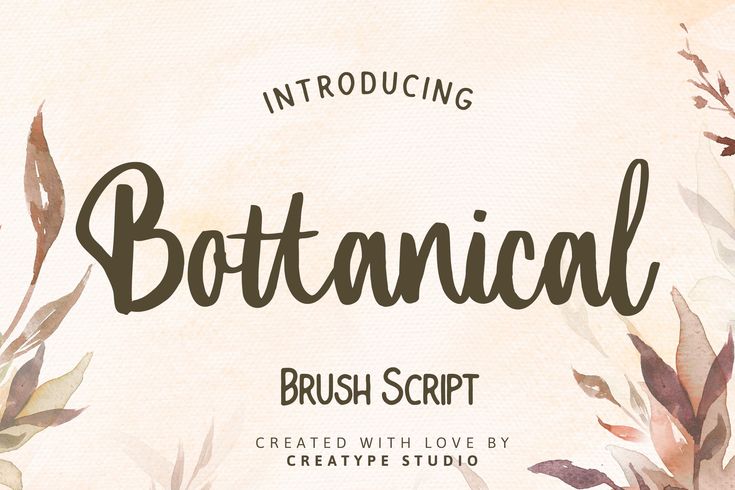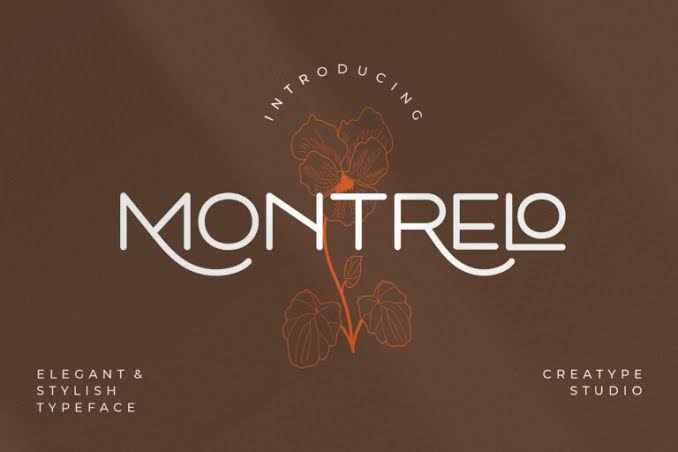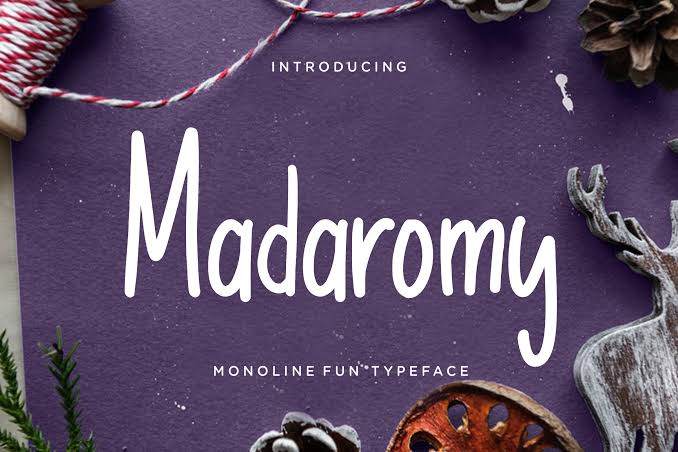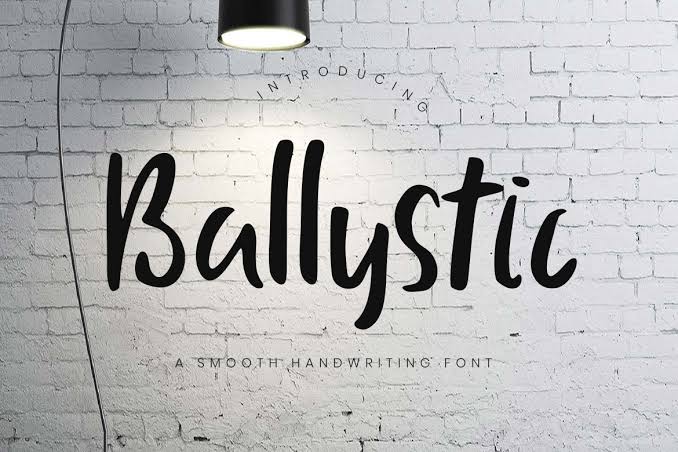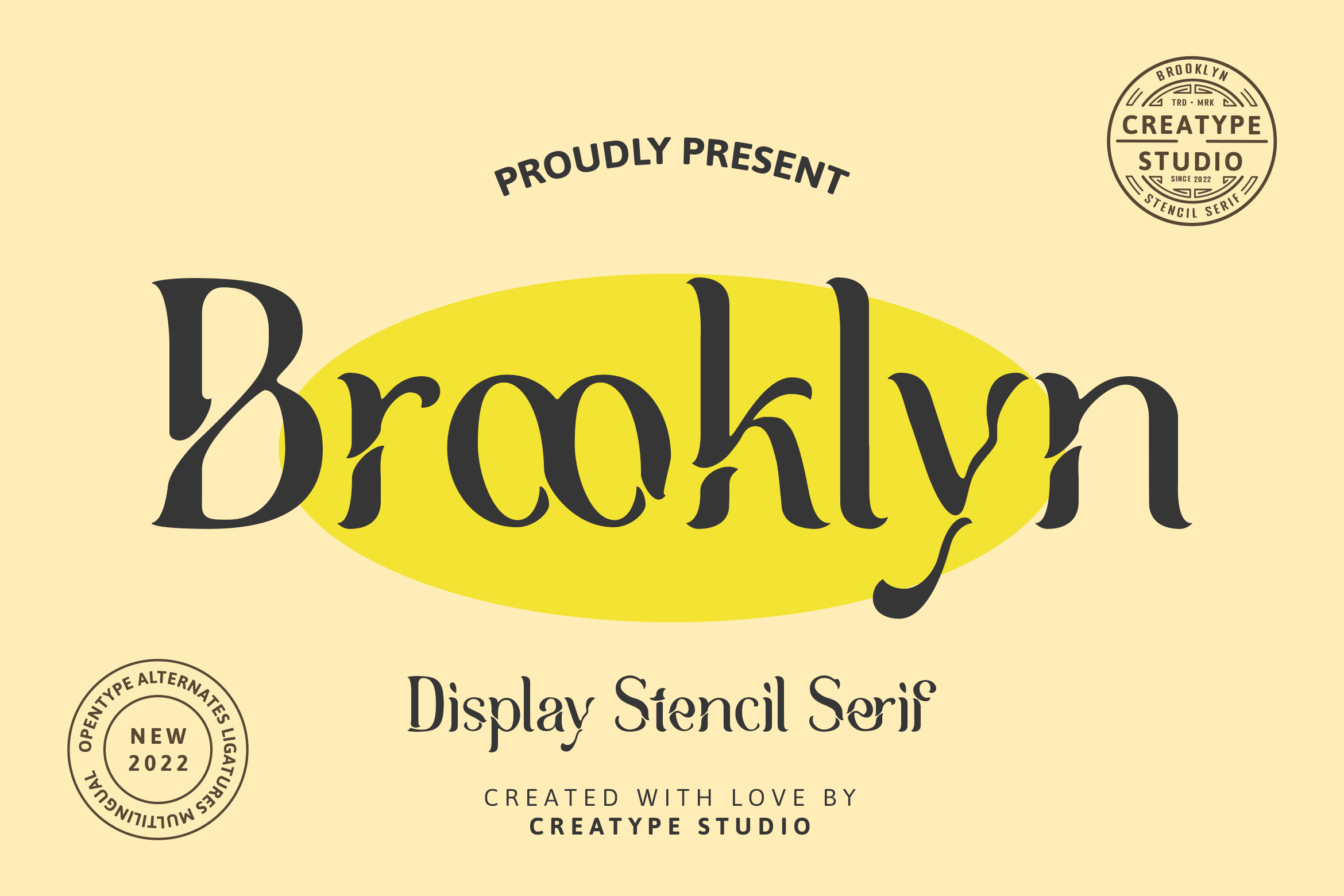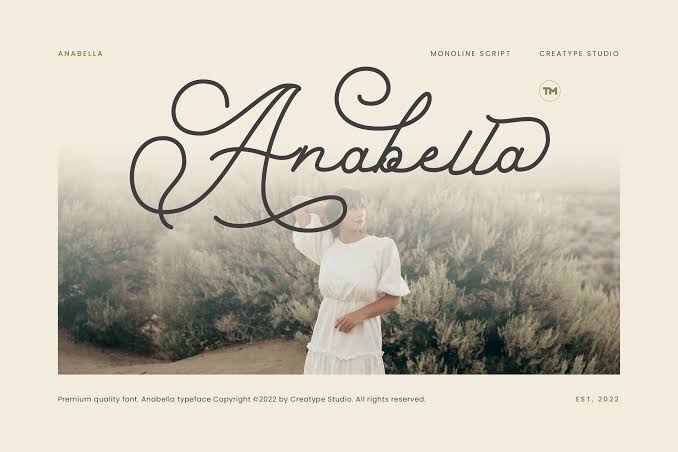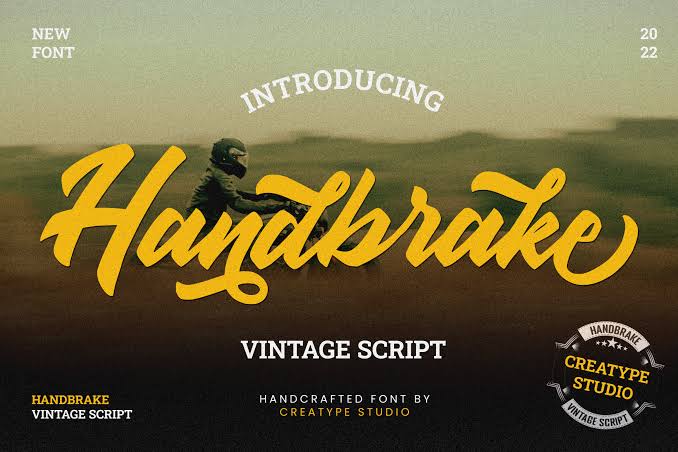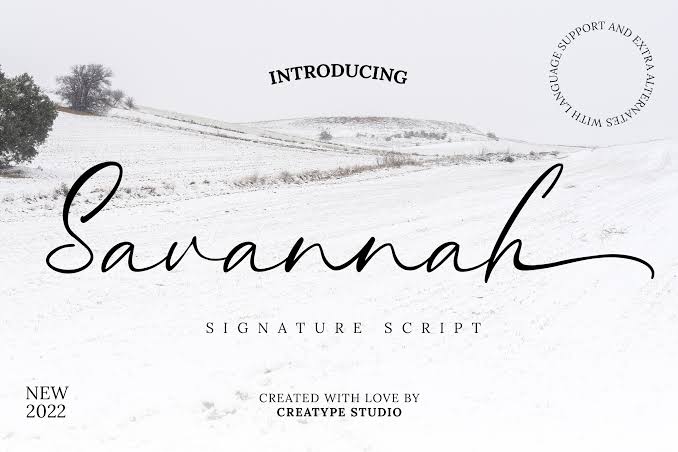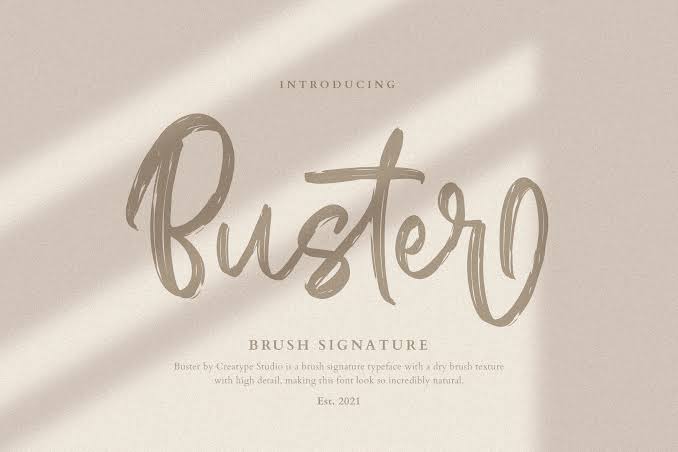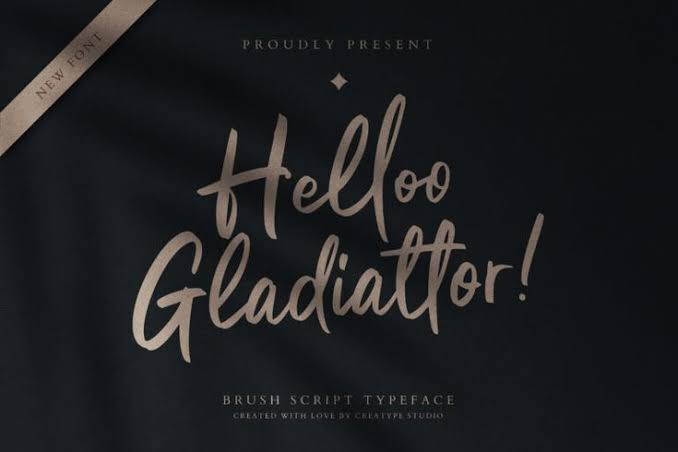
21 Recommendations for Happy New Year Font That You Can Use
As the calendar flips over, it’s time to liven up your invitations and greetings with the perfect touch of the Happy New Year font. However, choosing the right font can bring extra effort. To handle this, let’s dive into some of the best fonts to make your New Year’s greetings truly stand out!
21 Recommendations for Happy New Year Font
Gear up for the upcoming festivities and get ready to ring in the New Year in style with these fonts!
1. Botanical
Our first happy New Year font recommendation is the Bottanical. Its characteristics include a handwritten appearance with neat curves, varying stroke thickness, and a touch of whimsy is really ideal for conveying a celebratory mood.
2. Peachy
With its gentle swirl and smooth lines, this handwritten font brings a sense of uniqueness to your New Year’s messages and makes them feel personal and heartfelt. Peachy also adds a delightful touch of casual sophistication, whether it’s for invitations or festive designs.
3. Eugellyca
With its flowing, yet structured appearance, Eugellyca font encapsulates a blend of sophistication and cheerfulness. Therefore, the font is an excellent choice to infuse your New Year’s creations with a touch of personality and elegance.
4. Foxykids
Foxykids has an essence of fun and excitement that’s perfectly suited to capturing the playful spirit of the New Year. Its rounded edges and lively strokes exude a sense of creativity to fill your designs with a dash of childlike enthusiasm.
5. Kinantan
Kinantan  has a playful yet stylish demeanor that is perfect for conveying a welcoming vibe. Furthermore, with its vibrant strokes and minimalist appearance, this font captures the approachable spirit of the New Year and radiates a happy ambiance.
6. Scratchy Erratic
As you can see, the Scratchy Erratic type’s dynamic and imperfect appearance adds a touch of charm and personality. No surprise, it became an excellent happy New Year font 2023 choice to convey a spirit of welcoming the upcoming year.
7. Little Lolla
Little Lolla is a vivacious font with charming quirky letterforms that are perfect for New Year’s party invites. With its slightly unexpected curves and distinct characters bringing creativity and cheer to any text, it is an ideal choice to add a touch of whimsy to your visuals.
8. Playgrowth
Playgrowth is a playful font that’s perfect for adding a vibrant touch to your New Year’s designs. Its bold and chunky characters are eye-catching enough to captivate celebration into your New Year’s greetings, invitations, and party announcements.
9. Sugeng Rawuh
Looking for a Happy New Year font that brings retro nuance? Sugeng Rawuh can be your choice! Its smooth and flowing lines evoke a sense of elegance and sophistication, while its vintage charm adds a touch of warmth and familiarity to your festive graphics.
10. Montrelo
Montrelo with its elegance, brings a touch of refinement to festive messages. Its balanced letterweight, stylish curves and clean lines also exude a sense of chic celebration that’s perfectly capturing the spirit of the New Year.
11. Madaromy
Next, you can use Madaromy for it has clean lines, unique curves, and flexible strokes which is ideal for various New Year projects. The font’s distinct character and charm also effortlessly captivate audiences with its contemporary and timeless appeal.
12. Ballystic
With its smooth and flowing characters, the Ballistic font adds a touch of authenticity and warmth to any text or design to enhance its visual appeal. This font makes the creative design stand out with its handwritten charm for any New Year’s design project.
13. Brooklyn
If you’re looking for a Happy New Year font style text that shows spirit with its bold and stylish design, then you need to list Brooklyn. The font’s sleek lines and unique lettering form create an eye-catching display, making it an absolutely perfect choice!
14. Anabella
Known for its fluid strokes and decorative curves, Anabella is ideal for New Year greetings, invitations, or themed decorations. Its seamless connectivity between letters also creates a harmonious flow; it is an excellent choice for conveying warm wishes.